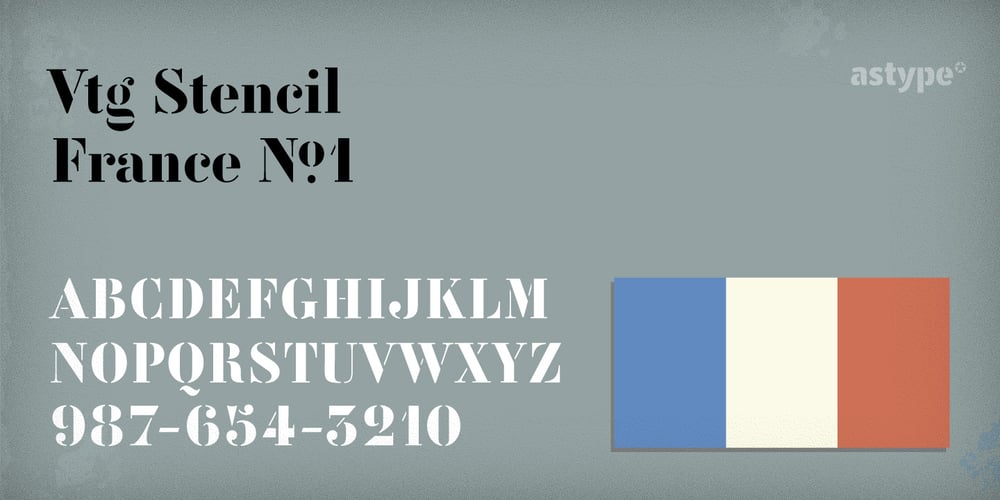
Vtg Stencil France No1 Font Family was designed by Andreas Seidel and published by astype. Vtg Stencil France No1 contains 4 styles and family package options. The Vtg Stencil fonts from astype are based on real world stencils from several countries. In the case of French stencils the challenge was special, because of the varieties of different widths and weights between the stencil sets – so I made France No. 1, No. 3 and No. 5. The most unique and eye-catching elements of typical French stencils are the figures 1, 2, 3, 7 and a specially 5. The figure 5 changes in style on smaller stencil sizes, its bobble getting replaced by something like a “breve”. The letters J and Q can differ in style too. While the local stencil lettering styles are gradually disappearing in other countries, there are regions in France, such as Normandy and Brittany, where these stencils are still in use today. They are used for technical lettering, which is what stencils were originally intended for, but also for ads and information signs in a more artistic or patriotic context. Over the time, these stencil letters became a globally recognized landmark of French design and French taste. All styles offering an extended Latin character set. » pdf specimen «